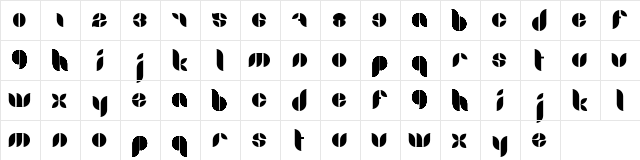
Lamia Regular
Design Context for Lamia Typeface
Lamia is a composed and adaptable typeface that performs quietly and consistently across a wide range of design contexts.